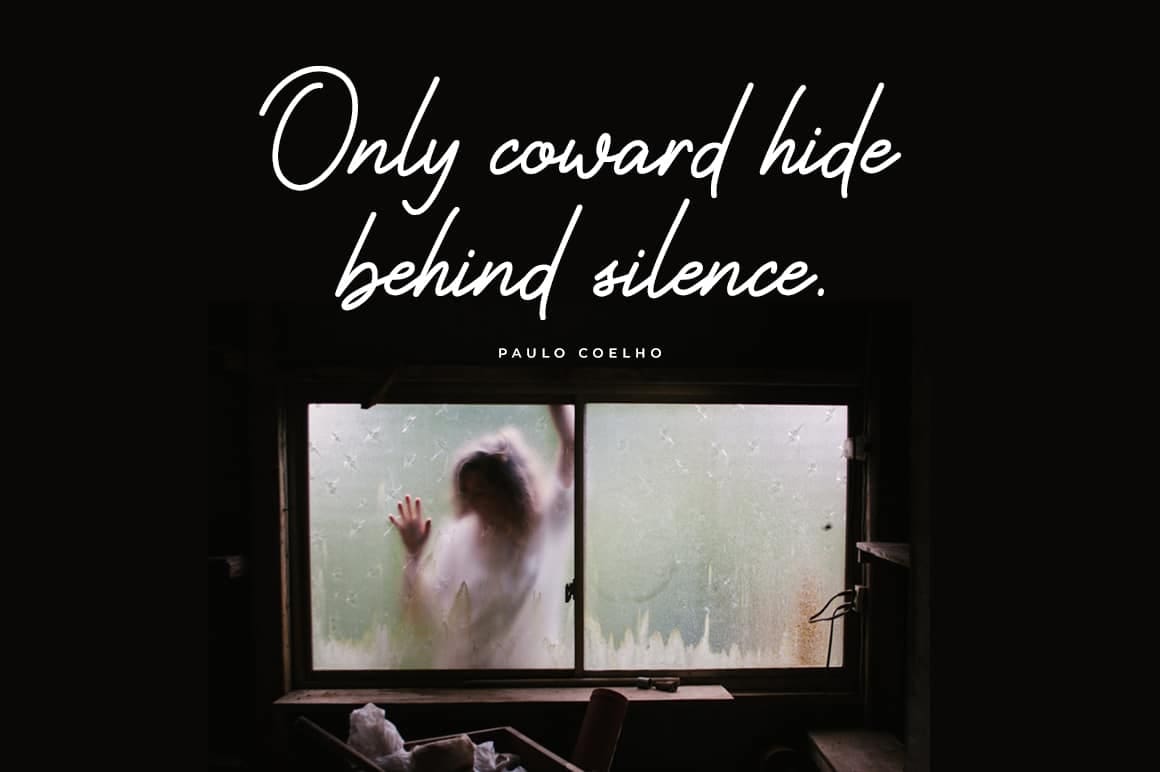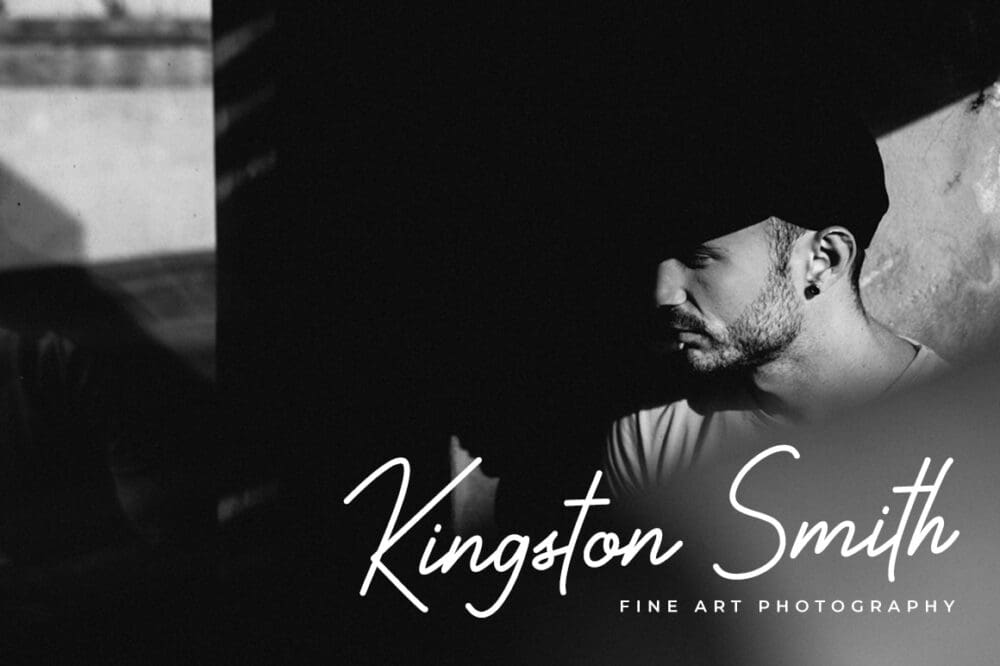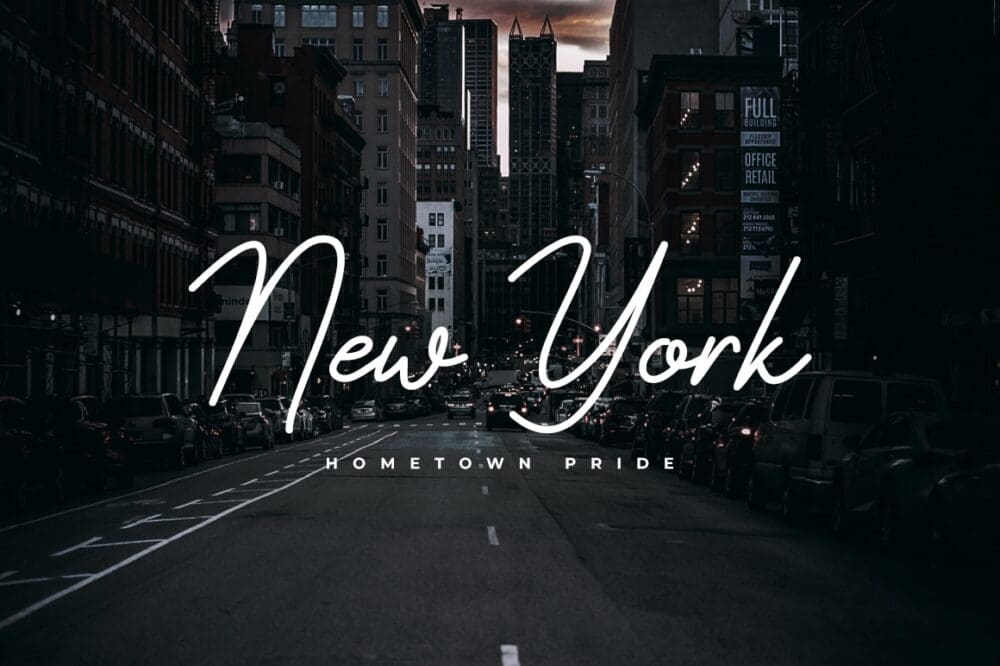
Rocketto Signature Font
Rocketto Signature Font carefully created with a touch of elegance. This font is perfect for branding, wedding invitation, business card, and much more.